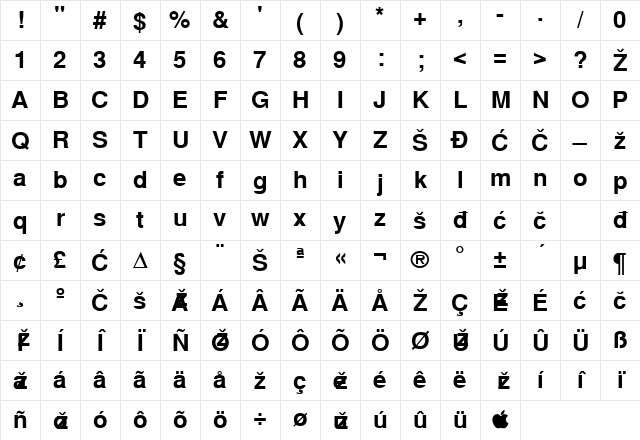
HelveticaBold Regular
Design Context for HelveticaBold
HelveticaBold is a composed and adaptable typeface that performs quietly and consistently across a wide range of design contexts. Its bold stroke weight gives it real presence on the page.